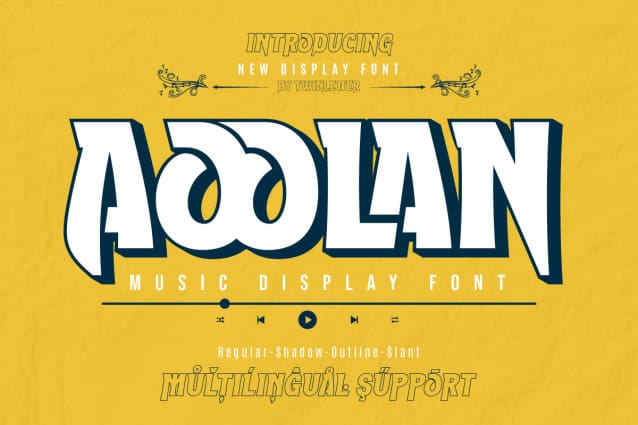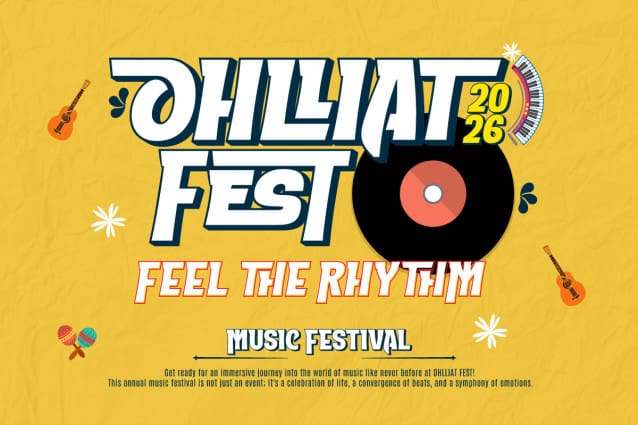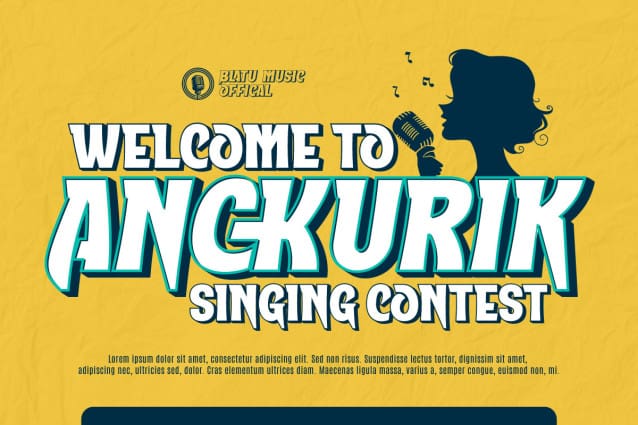
Aoolan Music Display Font
Aoolan Music Display Font is a loyal friend to music designers and art lovers who need a unique visual touch. As a sophisticated music display font, Aoolan features six stunning styles, including Regular, Outline, Shadow, and Slant.
Each Aoolan character is designed with precision to create a harmonious and artistic appearance. This font combines the clarity of Regular, the artistry of Outline, the tension of Shadow, and the elegance of Slant to provide endless possibilities in your designs.
With support for six different styles, Aoolan allows you to customize the design according to the musical atmosphere you want to depict. Use Outline for an artistic touch or Shadow for a dramatic effect; the choice is at your fingertips.
Aoolan Music Display is not just a font, but a tool of creative expression that brings a visual dimension to any of your music projects. Bring the beauty of design to your sound world with Aoolan Music Display Fonts.